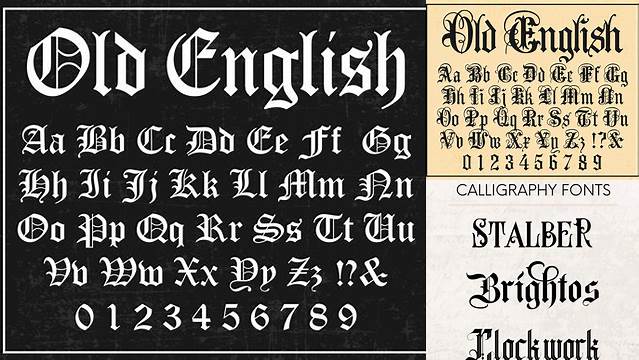
1001 Old English Fonts: Free Download & Usage Tips
Hey guys! Ever feel like you need to add a touch of classic elegance or historical charm to your designs? Well, you've stumbled upon the right place! In this article, we're diving deep into the world of Old English fonts, exploring a vast collection of 1001 styles that can instantly transport your projects back in time. Whether you're working on a branding project, a vintage-inspired poster, or simply want to add a unique flair to your text, Old English fonts are a fantastic choice. Let's explore the rich history, versatility, and the sheer abundance of options available in this timeless typography style. We'll also explore how to make the most of these fonts in your designs, ensuring that your creations stand out with sophistication and character. This extensive exploration will guide you through the nuances of Old English typography, helping you select the perfect font for any project, be it a formal invitation or a striking headline. So, grab your creative hats, and let's embark on this typographic journey together!
What are Old English Fonts?
So, what exactly are Old English fonts? To put it simply, Old English fonts, also known as blackletter or gothic script, are a style of writing that flourished in Europe from about the 12th century through the 17th century. Think of them as the rockstars of medieval typography! These fonts are characterized by their dramatic, angular strokes, thick-to-thin contrasts, and elaborate ornamentation. They often evoke a sense of history, tradition, and formality. These fonts are more than just a style; they're a visual representation of a bygone era, bringing with them the weight of history and the elegance of craftsmanship. The distinctive letterforms, with their sharp serifs and interwoven strokes, make them instantly recognizable and highly impactful. Understanding the history and characteristics of Old English fonts is crucial for using them effectively in modern design projects. These fonts aren't just for historical recreations; they can add a touch of class and sophistication to contemporary designs as well. But it's also important to be aware of their inherent formality and to use them judiciously to avoid overwhelming your audience.
History and Evolution
The history of Old English fonts is as fascinating as the fonts themselves! Originating from Carolingian minuscule, blackletter gradually evolved into various regional styles, each with its unique flavor. From the Textura used in religious texts to the Rotunda favored in Southern Europe, these fonts have a rich and diverse lineage. The invention of the printing press in the 15th century played a significant role in standardizing and popularizing blackletter, making it the dominant typeface for centuries. However, with the rise of humanist typefaces during the Renaissance, Old English fonts began to fall out of favor for general use but remained popular for specific purposes, such as legal documents and religious texts. Their evolution reflects the changing cultural and technological landscapes of Europe, showcasing how typography adapts and evolves over time. Today, Old English fonts are experiencing a resurgence in popularity, thanks to their ability to convey a sense of history and authenticity. Designers are rediscovering their potential for adding a touch of classic elegance to modern projects, from branding to editorial design. By understanding the historical context of these fonts, we can better appreciate their aesthetic qualities and use them in ways that are both respectful and innovative.
Key Characteristics
Let's talk about the key characteristics of Old English fonts. These fonts are all about drama and detail. Think bold, intricate letterforms with sharp angles, pronounced serifs, and a strong vertical emphasis. The thick-to-thin strokes create a visually striking texture, and the overall effect is one of gravitas and grandeur. One of the defining features is the high degree of ornamentation, with letters often adorned with elaborate flourishes and ligatures. This ornamentation adds to their visual complexity and contributes to their distinctive appearance. Another crucial characteristic is their relatively narrow width, which gives them a condensed and imposing look. This narrowness, combined with their strong verticality, makes them ideal for headlines and titles, where they can command attention. However, it also means they can be challenging to read in large blocks of text. Understanding these characteristics is essential for using Old English fonts effectively. They're not just about aesthetics; they also have implications for readability and usability. By appreciating their unique qualities, we can harness their power to create designs that are both visually stunning and functionally sound.
Why Use Old English Fonts?
So, why should you even bother with Old English fonts in the first place? Well, these fonts are more than just pretty letters; they're powerful tools for conveying specific moods and messages. They exude authority, tradition, and a sense of timelessness. If you want to give your design a touch of classic elegance, historical authenticity, or a bit of mystique, Old English fonts are your go-to choice. Think about the branding for a high-end whiskey, a historical drama poster, or a certificate of achievement β these are all situations where Old English fonts can truly shine. Their inherent formality makes them ideal for projects that require a touch of gravitas. But they can also be used creatively to add a unique twist to modern designs. The key is to understand the specific connotations they carry and to use them in ways that enhance your message. Whether you're aiming for a vintage vibe or a contemporary edge, Old English fonts offer a versatile palette for your creative expression.
Evoking History and Tradition
The primary reason many designers gravitate towards Old English fonts is their ability to evoke history and tradition. These fonts are like a visual time machine, instantly transporting your audience back to the medieval era. They carry the weight of centuries of history, making them perfect for projects that need to convey a sense of heritage, authenticity, or timelessness. Think about historical societies, museums, or brands with a long and storied past β Old English fonts can be incredibly effective in capturing their essence. But it's not just about historical accuracy; it's also about tapping into the emotional resonance of these fonts. They evoke a sense of grandeur, formality, and even a touch of mystique. This makes them ideal for projects that aim to create a sense of awe or reverence. By using Old English fonts, you're not just choosing a typeface; you're choosing to connect with a rich cultural legacy. But it's important to use them thoughtfully, ensuring that they complement your message and resonate with your target audience. A well-chosen Old English font can add depth and meaning to your design, making it more impactful and memorable.
Adding a Touch of Elegance and Formality
Beyond their historical connotations, Old English fonts are also fantastic for adding a touch of elegance and formality to your designs. Their elaborate letterforms and dramatic strokes exude sophistication, making them a perfect choice for projects that require a sense of refinement. Think about wedding invitations, certificates, or high-end branding β these are all situations where Old English fonts can elevate your design to the next level. The inherent formality of these fonts makes them ideal for projects that need to convey a sense of importance or prestige. But it's not just about formality; it's also about the visual appeal of these fonts. Their intricate details and striking contrasts create a sense of visual richness that is hard to replicate with other typefaces. By using Old English fonts, you're adding a layer of artistry to your design, making it more visually captivating and memorable. However, it's important to use them sparingly and in the right context. Overusing them can make your design feel cluttered or overwhelming. The key is to strike a balance between elegance and readability, ensuring that your message remains clear and impactful.
Creating a Unique and Distinctive Look
If you're looking to create a unique and distinctive look for your project, Old English fonts can be a game-changer. In a world saturated with sans-serif typefaces, choosing an Old English font is a bold statement that can help you stand out from the crowd. Their distinctive letterforms and historical associations make them instantly recognizable and memorable. This can be particularly valuable for branding projects, where creating a unique identity is crucial. But it's not just about being different; it's also about conveying a specific message. Old English fonts can evoke a sense of tradition, authority, and even a touch of mystery, making them ideal for brands that want to project these qualities. By using them creatively, you can add a layer of depth and personality to your design. However, it's important to use them strategically. Overusing them or using them in the wrong context can make your design feel dated or out of touch. The key is to integrate them seamlessly into your overall design, ensuring that they enhance your message and resonate with your target audience. A well-chosen Old English font can be a powerful tool for creating a distinctive brand identity and making a lasting impression.
Where to Use Old English Fonts?
Okay, so you're sold on the beauty and power of Old English fonts, but where do you actually use them? These fonts are incredibly versatile, but they shine brightest in specific contexts. Think about situations where you want to convey a sense of history, elegance, or formality. They're perfect for branding projects, especially for businesses with a long and storied past. Imagine a brewery with a heritage dating back centuries, or a law firm with a reputation for tradition and expertise β Old English fonts can be a fantastic choice for their logos and marketing materials. They're also ideal for invitations, particularly for weddings or formal events, where they can add a touch of sophistication. Certificates and diplomas are another natural fit, as these documents often require a sense of authority and tradition. But don't limit yourself to these classic applications! Old English fonts can also be used creatively in more contemporary designs. They can add a touch of contrast and visual interest to modern layouts, creating a unique and memorable look. The key is to use them thoughtfully and in moderation, ensuring that they complement your message and enhance your overall design.
Branding and Logos
When it comes to branding and logos, Old English fonts can be a powerful tool for conveying a sense of history, tradition, and prestige. They're particularly effective for businesses with a long and established history, as they can help to reinforce a brand's heritage and legacy. Think about brands in industries like brewing, law, or finance, where tradition and expertise are highly valued. An Old English font in their logo can instantly communicate these qualities, creating a sense of trust and credibility. But it's not just about historical brands; Old English fonts can also be used creatively for contemporary brands that want to project a sense of sophistication and elegance. Imagine a high-end fashion brand or a luxury hotel using an Old English font in their logo β it can add a touch of exclusivity and refinement. However, it's important to use them judiciously. An Old English font in a logo can be highly impactful, but it can also be overwhelming if not used correctly. The key is to choose a font that is legible and fits the overall brand identity. It's also important to consider the context in which the logo will be used. An Old English font may not be the best choice for a website or mobile app, where readability is paramount. But for print materials, signage, or other applications where a strong visual impact is desired, they can be incredibly effective.
So, there you have it, guys! A deep dive into the wonderful world of 1001 Old English fonts. These fonts are a treasure trove of typographic history, offering a unique blend of elegance, formality, and tradition. Whether you're working on a branding project, designing invitations, or simply want to add a touch of classic flair to your text, Old English fonts can be a powerful tool in your design arsenal. Just remember to use them thoughtfully and strategically, considering legibility, context, and pairing options. With a little practice and experimentation, you can harness the power of Old English fonts to create designs that are both visually stunning and highly effective. So go ahead, explore the vast collection of options available, and let your creativity soar! These fonts are more than just letters; they're a piece of history, a touch of elegance, and a whole lot of personality waiting to be unleashed in your designs. Happy designing!